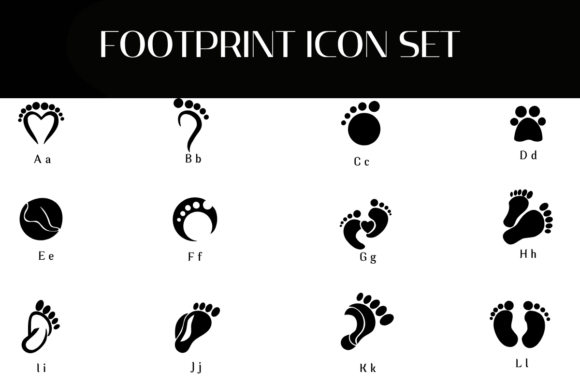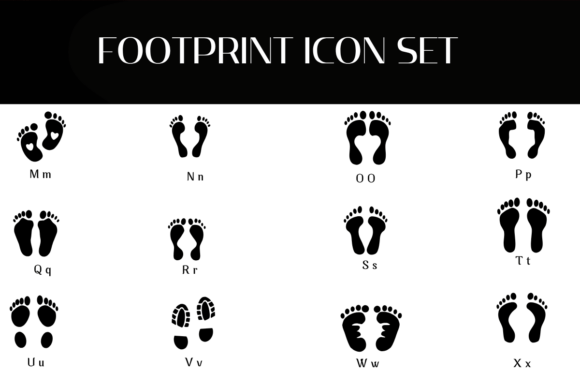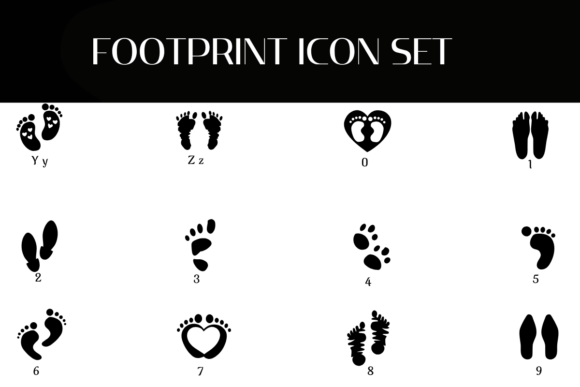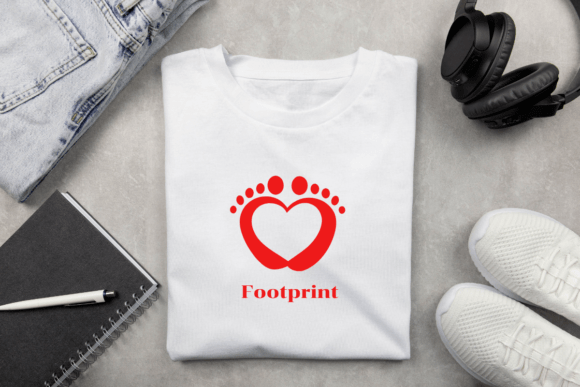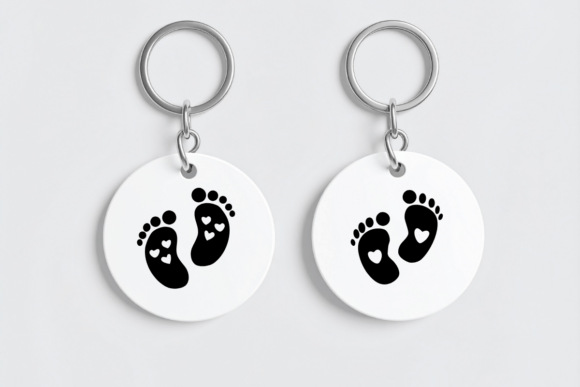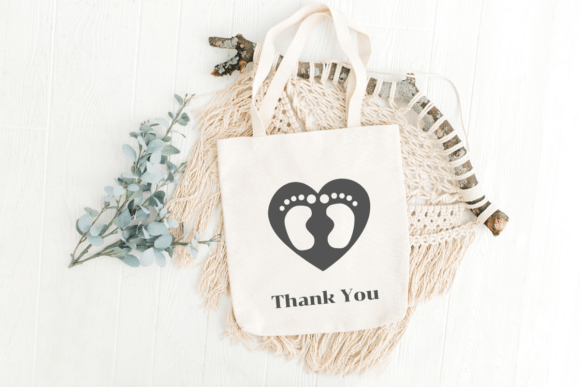
Introduction to Footprint Icon Set Font
Step into a world of visual storytelling with the Footprint Icon Set, a comprehensive dingbats font designed for ultimate versatility.
This unique collection replaces standard characters with a diverse array of foot-themed symbolsโranging from realistic human tracks and playful baby steps to stylized heart-shaped prints and boot treads Whether youโre designing educational materials, whimsical nursery decor, detective-themed event invitations, or health and wellness graphics, this font allows you to โtypeโ professional icons instantly.
Key Features of Footprint Icon Set Font